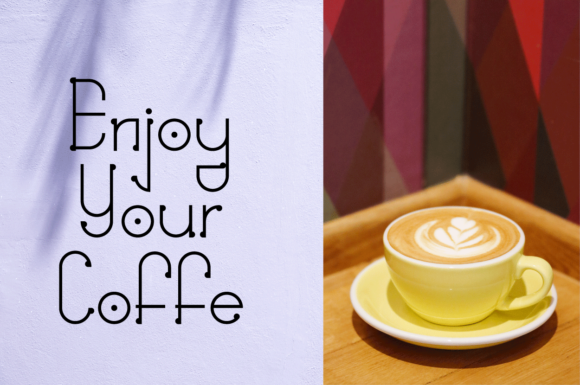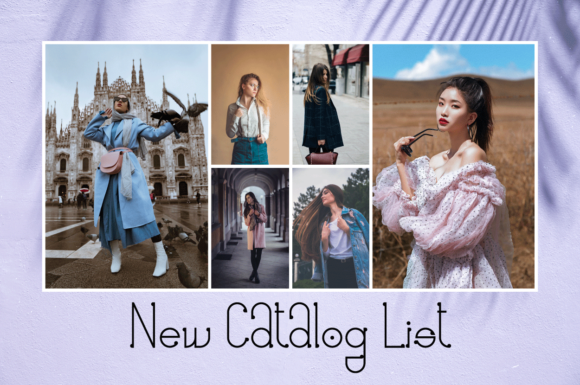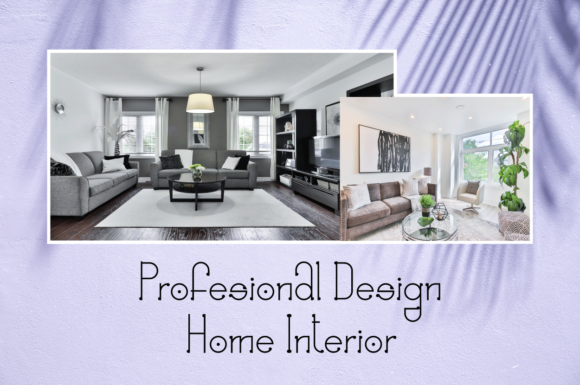
Introduction to Nismara Font
Nismara is a cool, urban styled and trendy serif font.
This font is ideal for writing web designs, business cards, or pretty much anything else that requires a casual, fun touch .
Nismara Font offers exceptional quality and versatility, making it a valuable addition to your design toolkit. Whether you’re creating for personal projects or commercial use, Nismara Font delivers professional results.